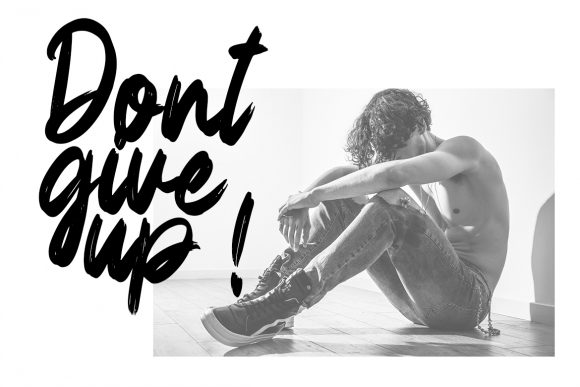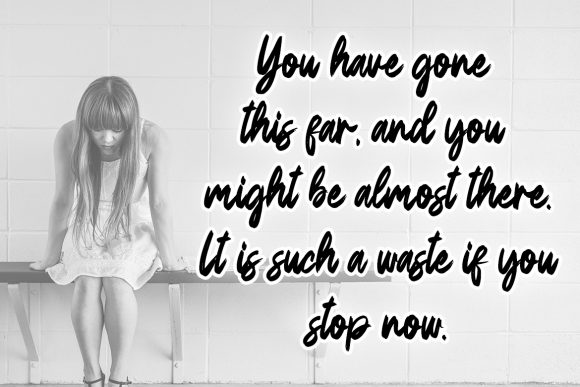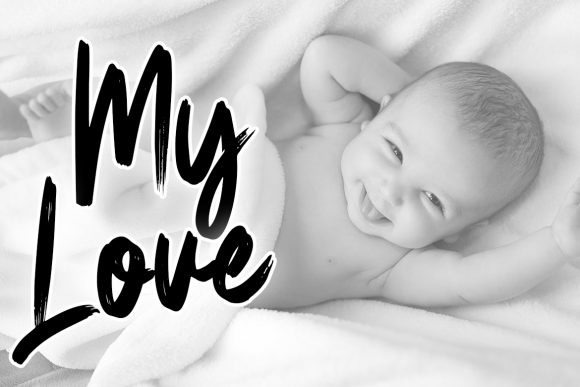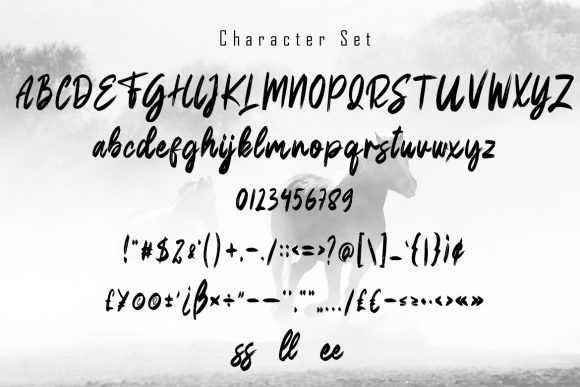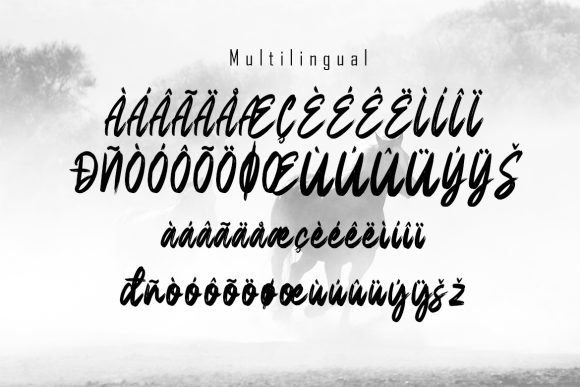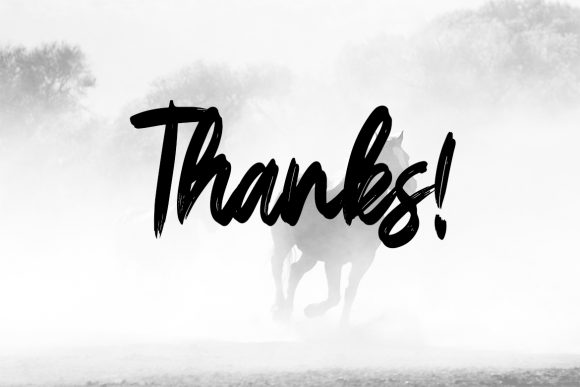
Introducing Desheer Font: The Rough Textured, Brushed Handwritten Font
Are you tired of using the same old fonts in your designs? Look no further than Desheer Font, a rough textured, brushed handwritten font that’s sure to elevate your creations. With its unique texture and charming aesthetic, Desheer is an incredibly versatile font that can be used for a wide range of projects, from branding and advertising to packaging and digital media.
The Characteristics of Desheer Font
Desheer Font is a one-of-a-kind font that boasts a rough, textured look that’s reminiscent of hand-painted or brushed lettering. Its irregularities and imperfections give it a charming, organic feel that’s perfect for designers and crafters who want to add a touch of personality to their work. The font’s brushed texture also gives it a sense of movement and energy, making it ideal for projects that require a dynamic, eye-catching look.
The Benefits of Using Desheer Font
No matter the topic or theme of your project, Desheer Font is an incredibly valuable asset to have in your font library. Here are just a few benefits of using Desheer Font:
- Unique aesthetic: Desheer Font’s rough, textured look sets it apart from more traditional fonts, giving your designs a distinctive and memorable look.
- Versatility: Desheer Font can be used for a wide range of projects, from elegant branding and advertising to more playful packaging and digital media.
- Emotional connection: The font’s charming, hand-crafted aesthetic helps to create an emotional connection with your audience, making your designs more relatable and engaging.
How to Use Desheer Font in Your Designs
Desheer Font is incredibly easy to use, and can be incorporated into a wide range of design projects. Here are a few ideas to get you started:
- Branding and advertising: Use Desheer Font to create eye-catching logos, headlines, and taglines that showcase your brand’s personality and style.
- Packaging: Add a touch of whimsy and charm to your packaging designs with Desheer Font, perfect for products that require a more playful and eye-catching look.
- Digital media: Use Desheer Font to create engaging social media graphics, blog posts, and other digital content that requires a unique and memorable look.
Tips for Getting the Most Out of Desheer Font
To get the most out of Desheer Font, here are a few tips to keep in mind:
- Experiment with different colors: Desheer Font looks great in a wide range of colors, so don’t be afraid to experiment and find the perfect hue for your design.
- Play with texture: Desheer Font’s textured look can be enhanced by combining it with other textures and patterns, adding depth and interest to your design.
- Mix and match: Combine Desheer Font with other fonts and typography styles to create a unique and eye-catching look.
Desheer Font is a rough textured, brushed handwritten font that’s sure to become a valuable asset in your font library. With its unique aesthetic, versatility, and emotional connection, Desheer Font is perfect for designers and crafters who want to add a touch of personality and charm to their designs. Whether you’re working on branding and advertising, packaging, or digital media, Desheer Font is the perfect choice for any project that requires a distinctive and memorable look.